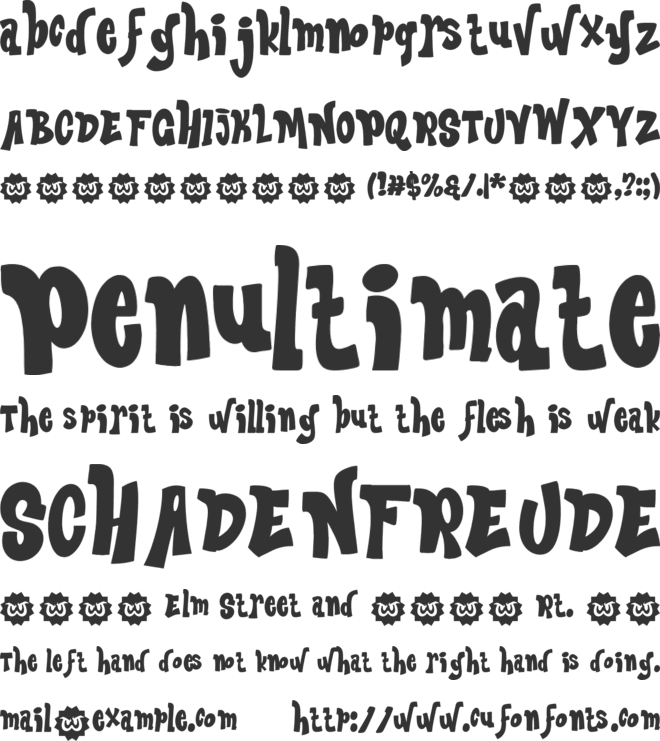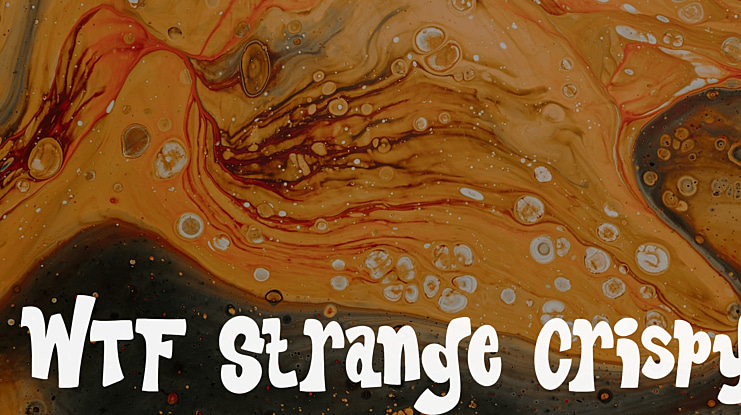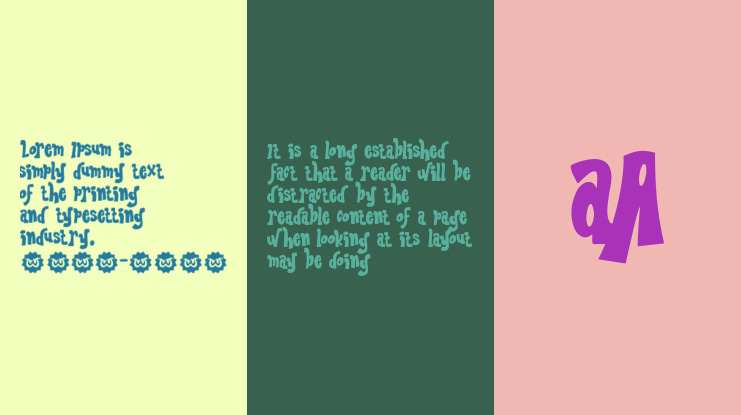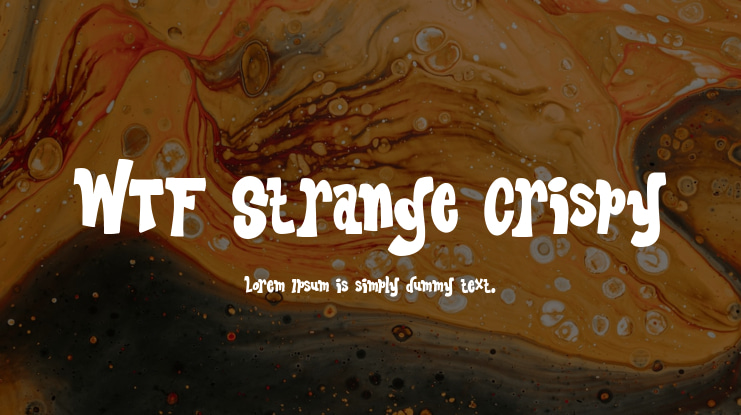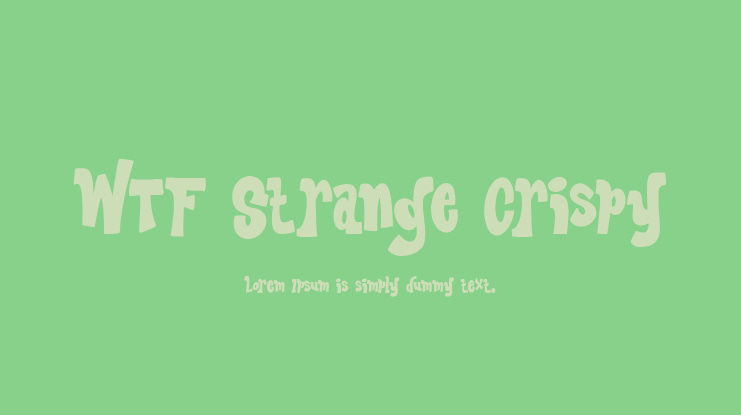
WTF Strange Crispy Font
Introducing WTF Strange Crispy - a lively and playful display font that draws inspiration from retro typefaces. Created entirely by hand, this font exudes an artistic charm that is sure to make your designs truly unique. Explore the versatility of mixing upper and lower case letters to achieve the perfect typography or logotype.
Designed for a wide range of applications, including quotes, branding, logos, and social media posts, "WTF Strange Crispy" adds a distinctive touch to every design, ensuring that it captures attention and leaves a lasting impression. Enhance your content with the captivating allure of this font and let your creativity shine through in every project.
WTF Strange Crispy font preview